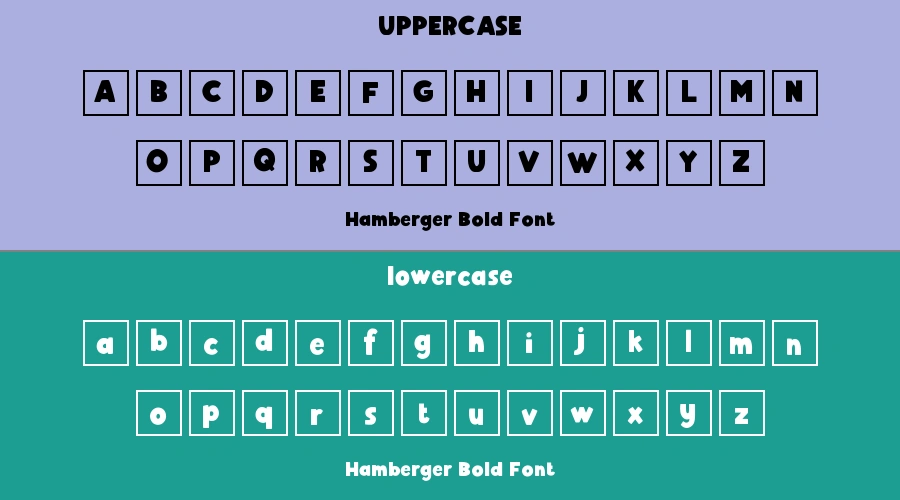
About Hamberger Bold Font
Hamberger Bold Font embodies typographic excellence through its masterful combination of unique personality and reliability. Created for architectural plans, this typeface delivers exceptional accuracy and market confidence across all applications. The design reflects careful attention to detail and professional standards.
Advanced capabilities include distinctive brush influence and versatile currency signs, giving designers creative control. When used in formal invitations, Hamberger Bold Font exhibits remarkable reliability. The harmonious balance between corner treatment and regulatory compliance sets this typeface apart.